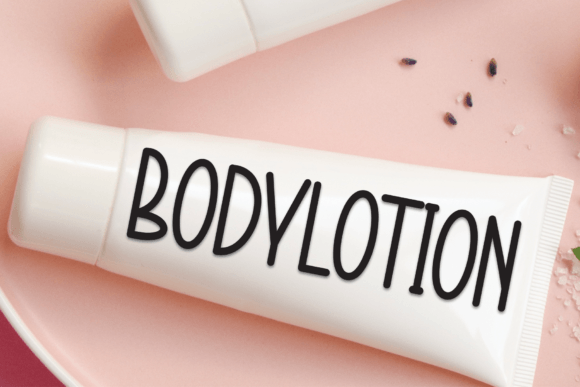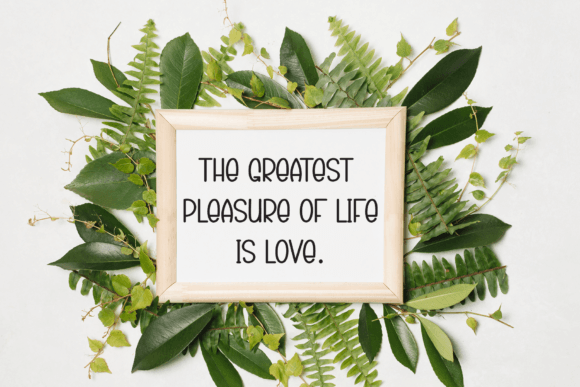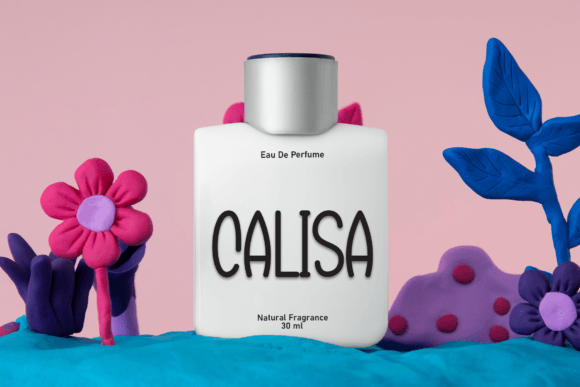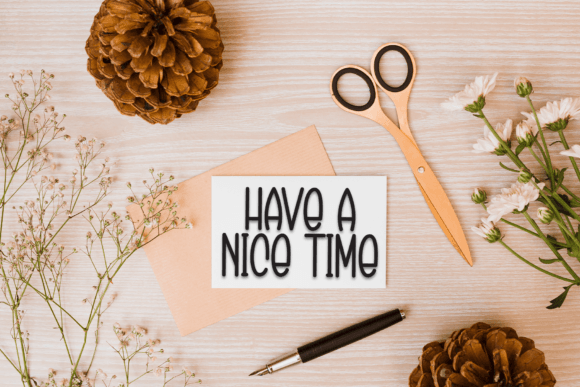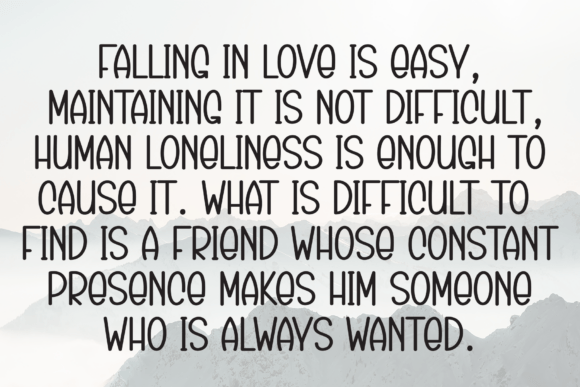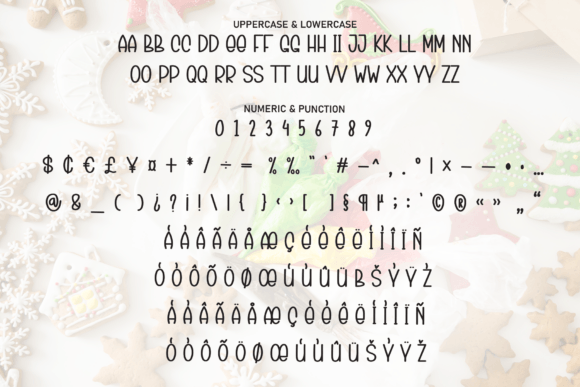
Christmas Cookies Font: A Deliciously Fun and Playful Handwritten Font for the Holiday Season
The holiday season is upon us, and with it comes the joy of creating festive and fun designs for our Christmas cards, gift tags, and decorations. If you’re a designer or crafter looking for a font that captures the warm and cozy spirit of the season, look no further than the Christmas Cookies Font. This delightful handwritten font is perfect for adding a personal touch to your holiday projects, and in this article, we’ll explore its features and uses in more detail.
What is Christmas Cookies Font?
Christmas Cookies Font is a fun and playful handwritten font that is designed to evoke the cheerful and festive atmosphere of the holiday season. Its cheerful, rounded letters look like they were written with a warm, festive spirit, making it the perfect choice for anyone looking to add a cozy, homemade touch to their Christmas projects. The font features a unique and distinctive style that is sure to stand out from more traditional fonts, and its playful and carefree vibe makes it ideal for use in a variety of creative projects.
Key Features of Christmas Cookies Font
So what makes Christmas Cookies Font so special? Here are just a few of its key features:
- Handwritten style: Christmas Cookies Font has a warm, handwritten feel that is perfect for creating personal and festive designs.
- Cheerful and playful: The font’s cheerful and playful letters are sure to put a smile on anyone’s face, making it perfect for holiday projects.
- Rounded letters: The font’s rounded letters give it a soft and friendly feel that is perfect for creating cozy and inviting designs.
- Festive spirit: The font’s festive spirit is palpable, making it the perfect choice for anyone looking to create holiday designs that capture the magic of the season.
Uses for Christmas Cookies Font
So what can you use Christmas Cookies Font for? The possibilities are endless, but here are a few ideas to get you started:
- Holiday cards: Use Christmas Cookies Font to create personalized and festive holiday cards that are sure to delight your friends and family.
- Gift tags: Add a personal touch to your gifts with festive gift tags featuring Christmas Cookies Font.
- Festive decorations: Use the font to create festive decorations, such as garlands, banners, and signs, that are sure to add to the holiday cheer.
- Social media graphics: Use Christmas Cookies Font to create fun and festive social media graphics that are sure to get you in the holiday spirit.
Why Choose Christmas Cookies Font?
So why choose Christmas Cookies Font for your holiday projects? Here are just a few reasons:
- Unique and distinctive: The font’s unique and distinctive style is sure to stand out from more traditional fonts.
- Easy to read: Despite its playful and handwritten style, Christmas Cookies Font is easy to read and understand, making it perfect for use in a variety of creative projects.
- Versatile: The font is versatile and can be used in a variety of creative projects, from holiday cards and gift tags to festive decorations and social media graphics.
- Festive and fun: The font’s festive and fun vibe is sure to add to the holiday cheer and make your designs stand out.
In conclusion, Christmas Cookies Font is a fun and playful handwritten font that is perfect for the holiday season. Its cheerful, rounded letters and festive spirit make it the perfect choice for anyone looking to add a cozy, homemade touch to their Christmas projects. Whether you’re a designer or crafter, this font is sure to inspire your creativity and help you create festive and fun designs that capture the magic of the season. So why not give it a try and see what deliciously fun designs you can create with Christmas Cookies Font?